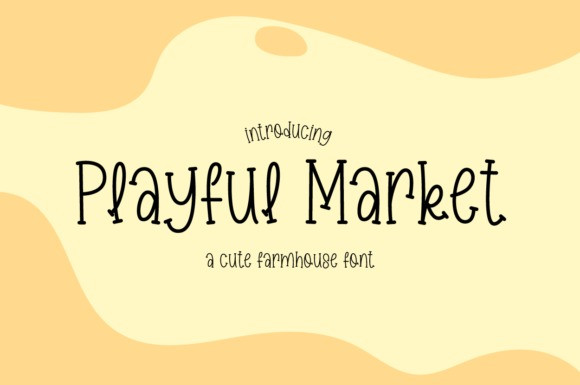
Playful Market Font
Playful Market Display Font is a cute, quirky and thin lettered handwritten font. Add it confidently to your favorite creations and let yourself be amazed by the outcome generated.